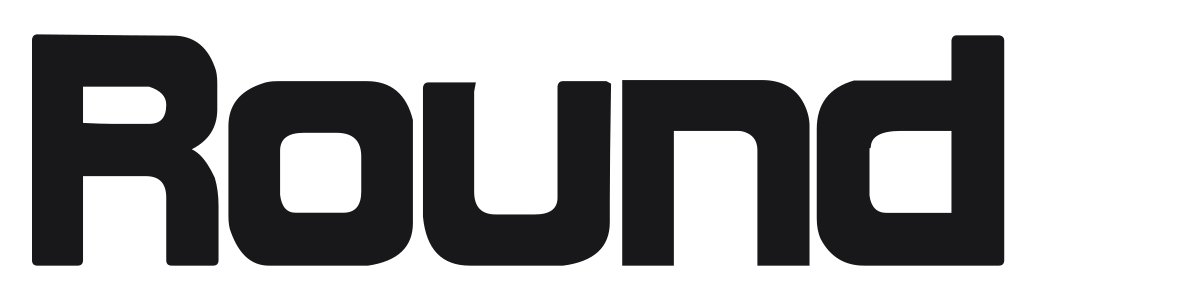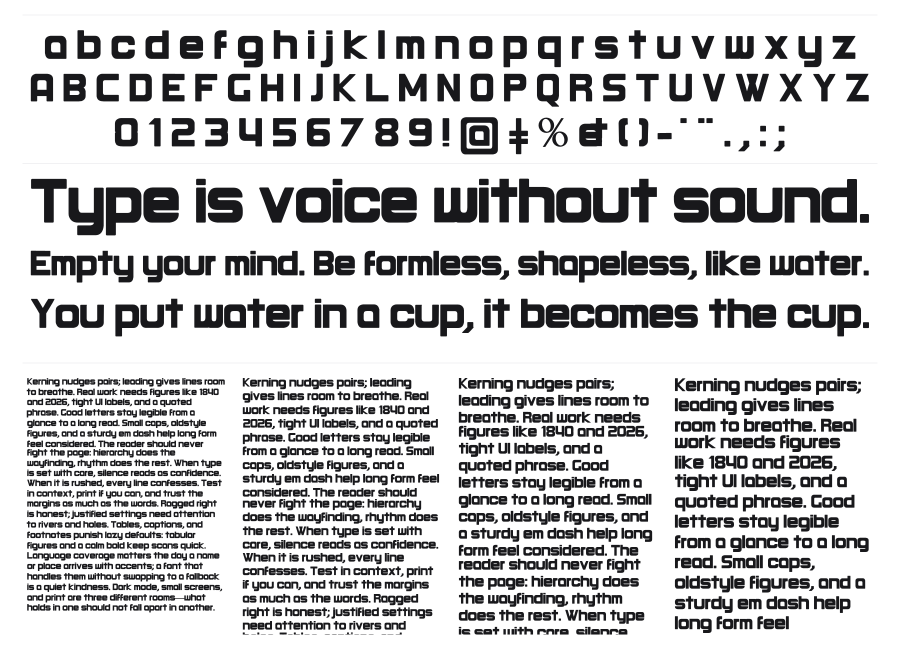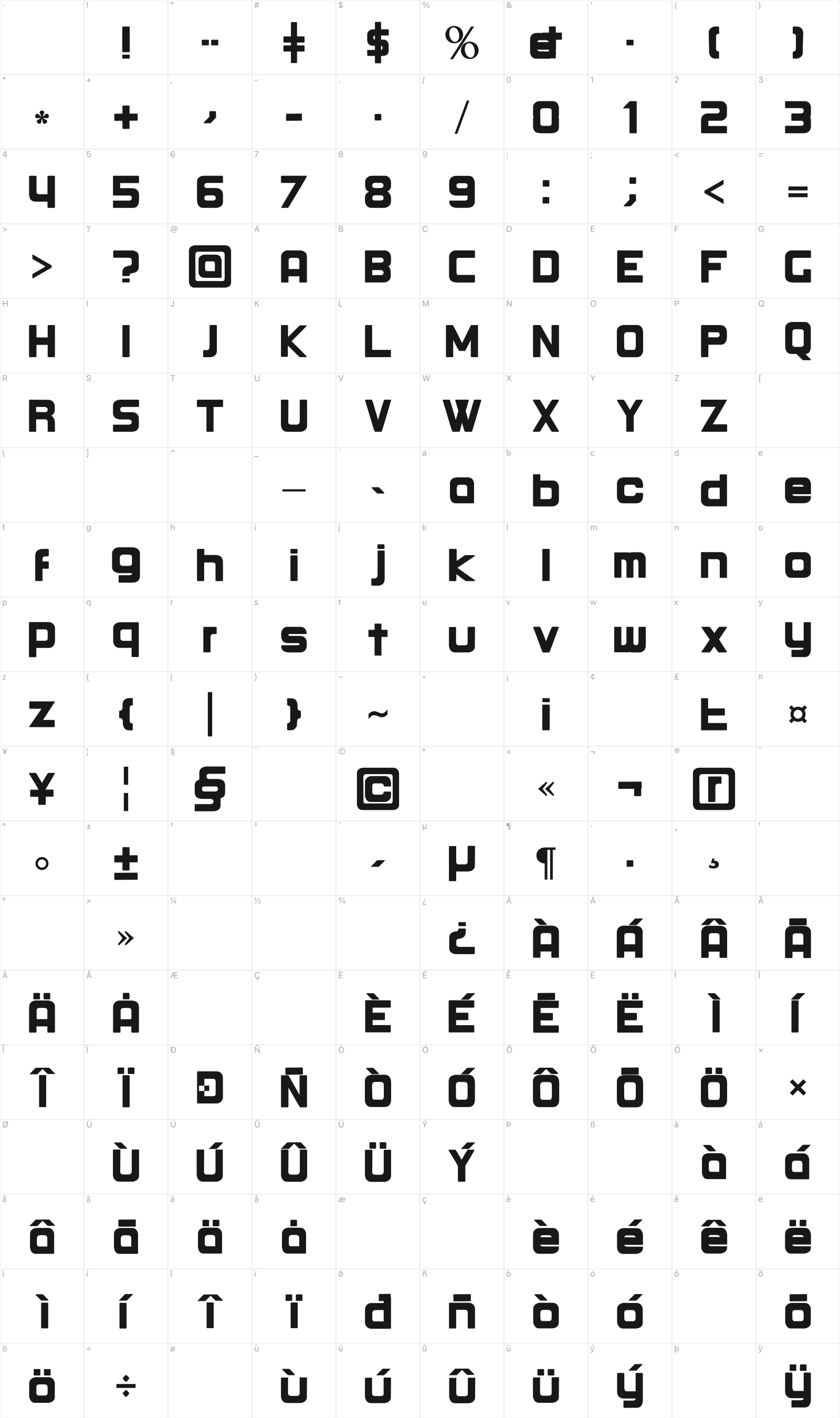
Round
Round is a heavy rounded sans-serif built on a strict 45-degree construction system, where every joint and cutout follows that same angular rule. The result is an unusual tension between soft, friendly terminals and sharp geometric notches carved into the stroke intersections. It reads as bold and modern at large sizes, with a personality that sits somewhere between techy and approachable.